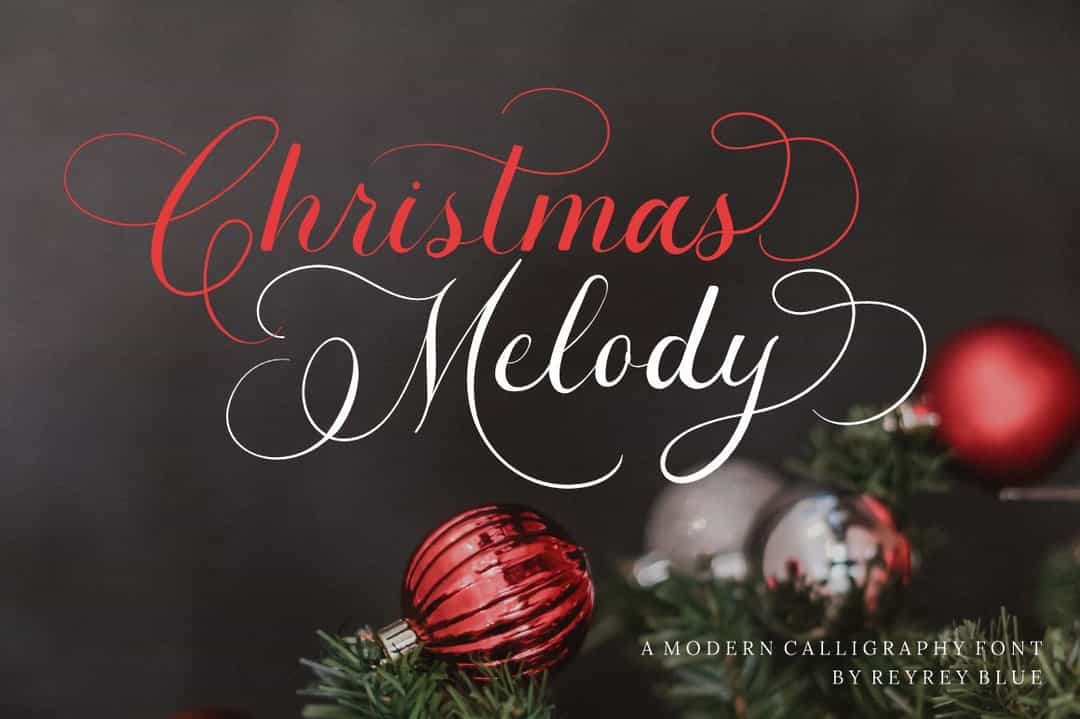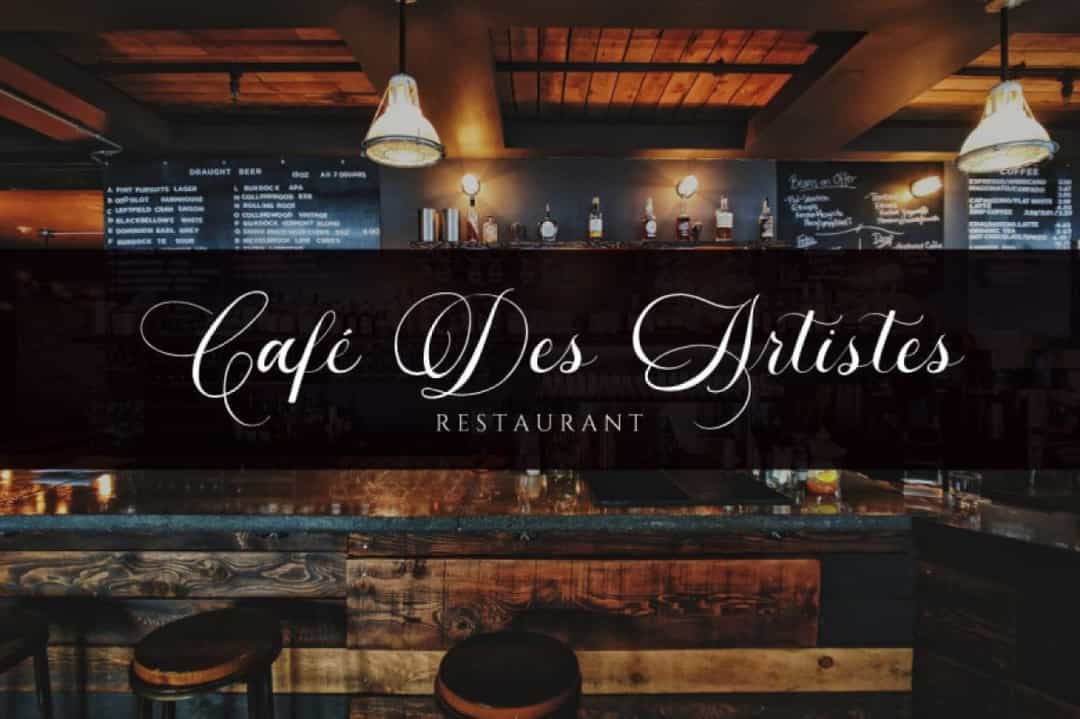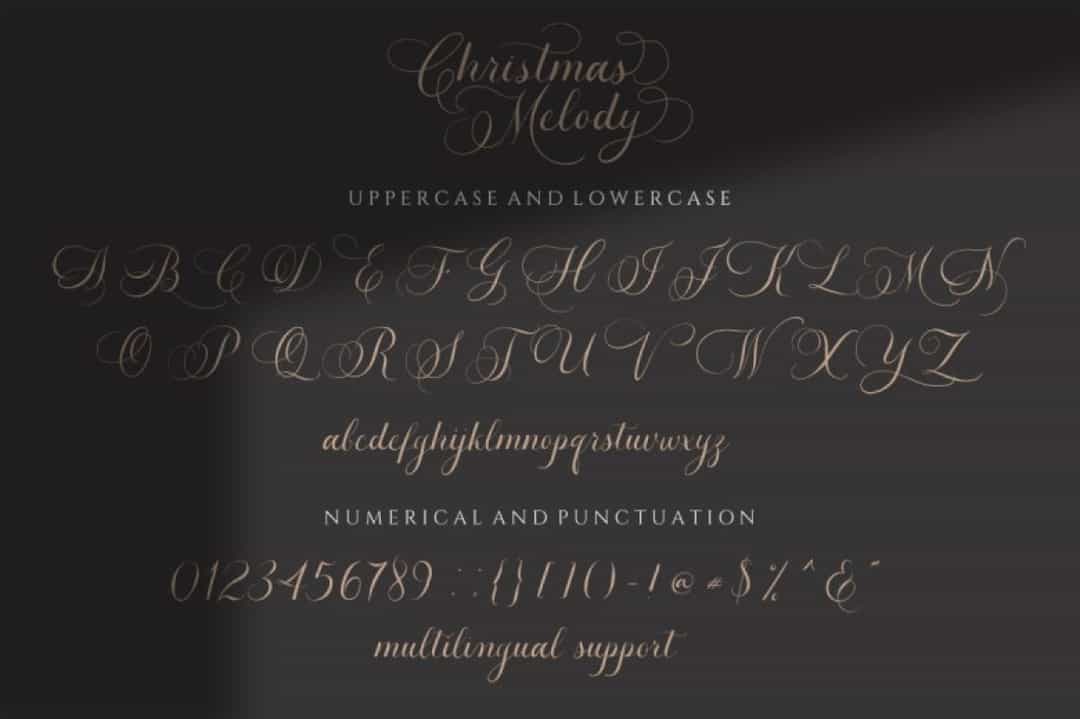
Christmas Melody is an elegant script typeface for calligraphy designed in a classic traditional style, yet with a touch of class. Perfect for use on red wine labels or vodka labels, elegant packaging for wedding stationery, wedding invitations, business cards, branding projects as well as any project needing handwritten touch and elegance! PUA encoded allows easy access to all font glyphs as well as swashes – make this your go-to font today!